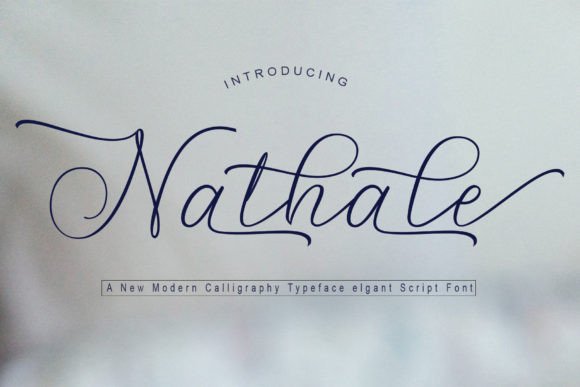
Introducing Nathale Font, the epitome of elegance and natural script style! Designed by the talented Polem, this exquisite calligraphy font is here to elevate your creative projects to new heights. Whether you're designing a personal logo, planning a dreamy wedding, or looking to enhance your brand's identity, Nathale is the perfect choice.
Captivate your audience from the very first glance with Nathale's mesmerizing curves and graceful strokes. This font effortlessly adds a touch of sophistication and charm to any design. With its versatile nature, Nathale is an incredible asset for a wide range of projects.
For those unforgettable wedding moments, Nathale Font ensures that your invitations, stationery, and photos reflect the beauty and romance of your special day. Its handwritten feel brings a personalized and intimate touch to every detail, leaving a lasting impression on your guests.
Are you in search of a font that will make your brand stand out from the crowd? Look no further than Nathale. Its timeless elegance and unique script style instantly make your logo memorable and eye-catching. Your brand will exude professionalism, creativity, and a touch of luxury, leaving a lasting impact on your target audience.
Social media has become a powerful tool for businesses to connect with their customers. With Nathale Font, your social media posts will leave users breathless. From captivating captions to stunning graphics, this font adds a touch of allure to your visual content, ensuring that your brand's message is conveyed with style and authenticity.
Product packaging is more than just a container; it's an opportunity to make a statement. Nathale Font brings your packaging designs to life, adding an air of elegance and sophistication. Whether it's a luxurious perfume bottle or a handcrafted artisanal product, Nathale's handwritten feel adds a personal touch that sets your brand apart.
Photographers understand the power of visual storytelling, and Nathale Font helps you narrate your story with finesse. Watermarks, labels, and photo captions become an artistic extension of your work, creating a seamless and captivating experience for your audience.
Don't settle for ordinary when you can have extraordinary. Nathale Font is the perfect companion for all your creative endeavors, whether you're a designer, photographer, entrepreneur, or simply someone who appreciates the beauty of handwritten artistry.